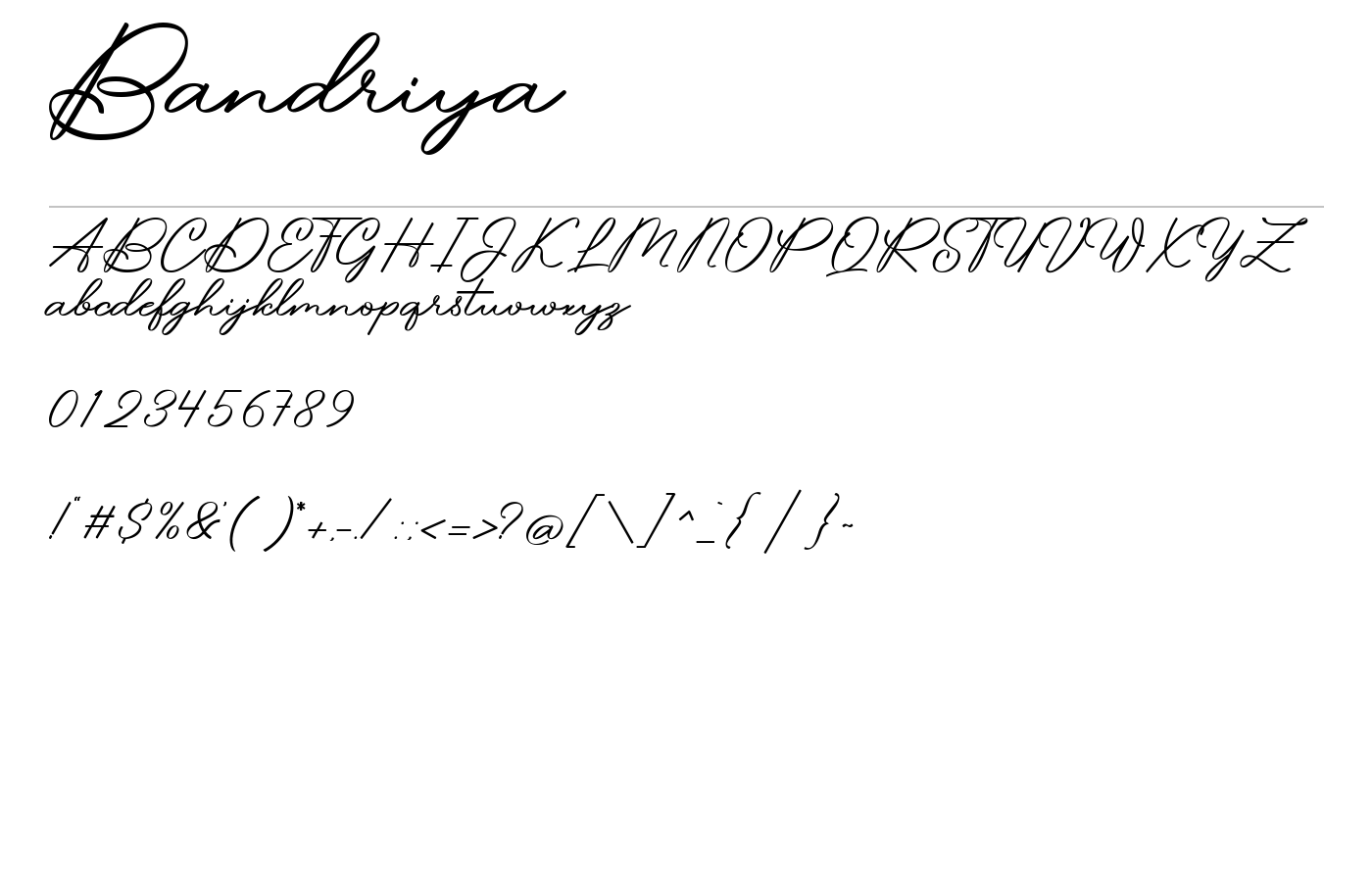
Bandriya is an elegant, delicate script font with a smooth, flowing style that mimics refined handwriting. Its fine strokes and graceful curves give it a sophisticated and personal touch, making it ideal for invitations, branding, and stylish editorial designs where a sense of warmth and charm is desired. This font works especially well in projects that seek a blend of classic elegance and modern casual flair.
Bandriya Font
About Bandriya Font